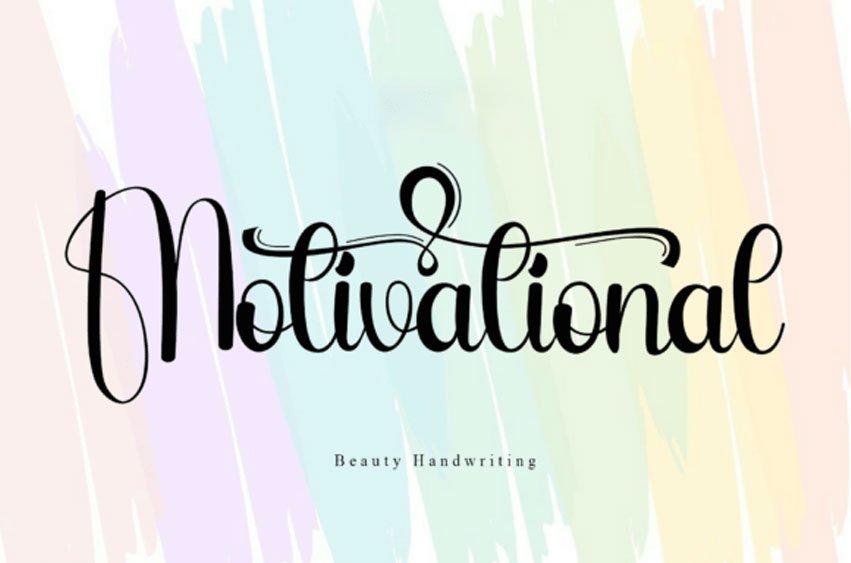
Motivational Font
Motivational Font is a handwritten script font that offers an elegant and personal touch to each character. Inspired by handmade strokes, this font brings a natural handwritten feel that is warm and inviting. Each letter displays uniqueness in every curve and stroke, creating a relaxed yet refined atmosphere.
Ideal for design projects that seek a personal touch, such as wedding invitations, greeting cards, brand logos and other design elements that require a warm and elegant atmosphere. “Dilligent ” is the perfect choice for your project.